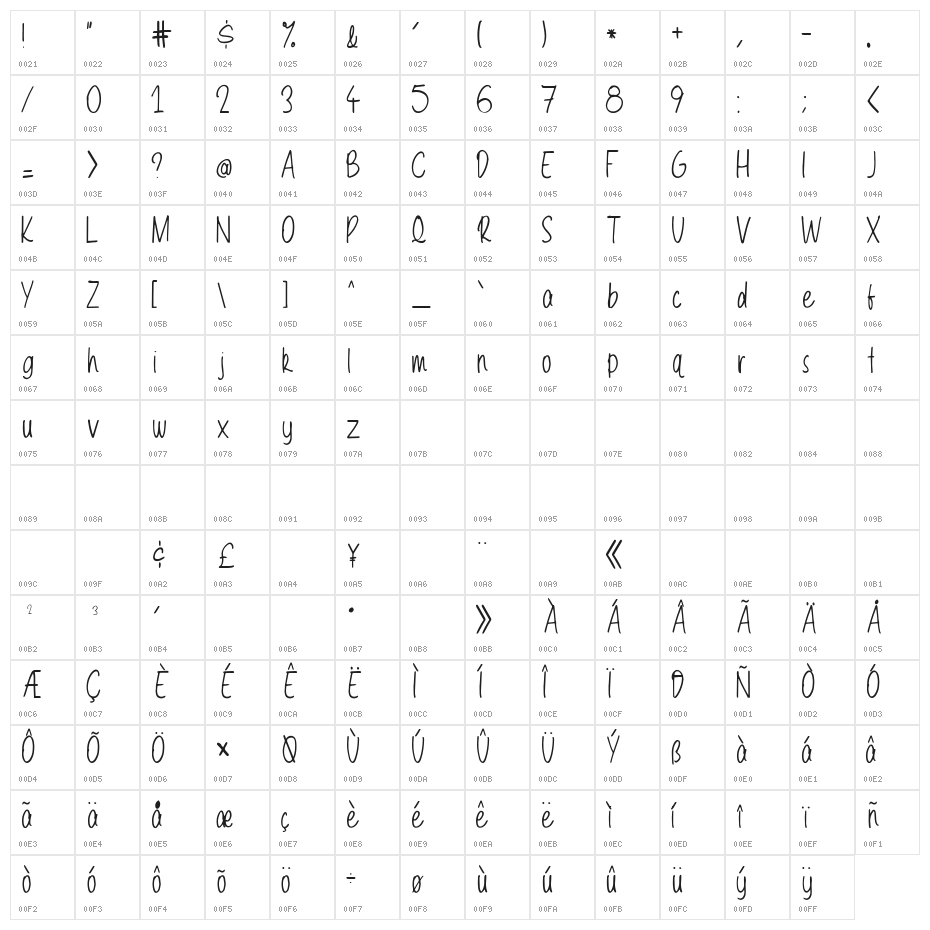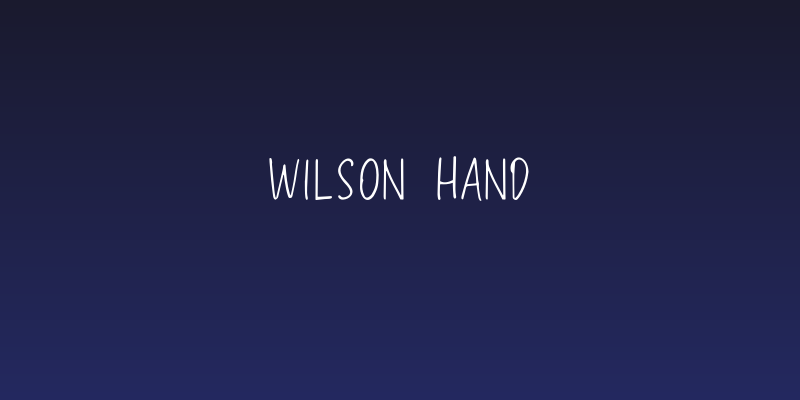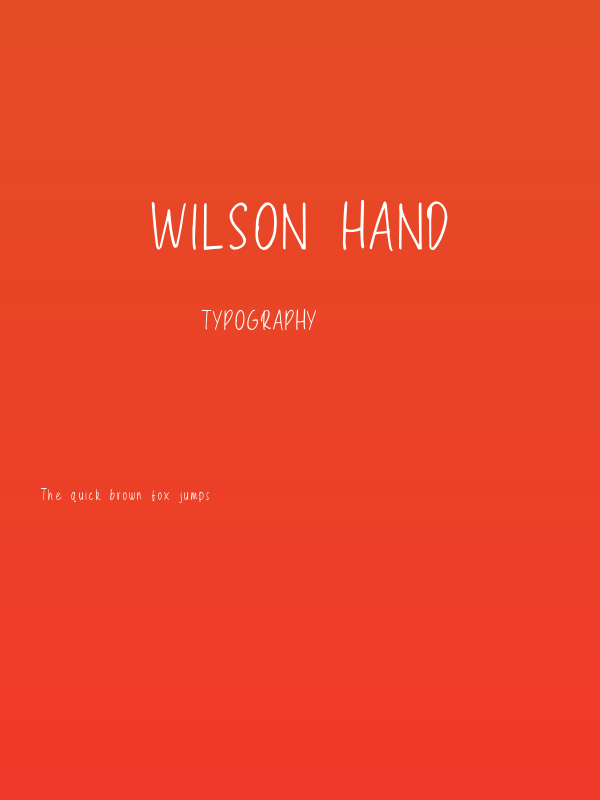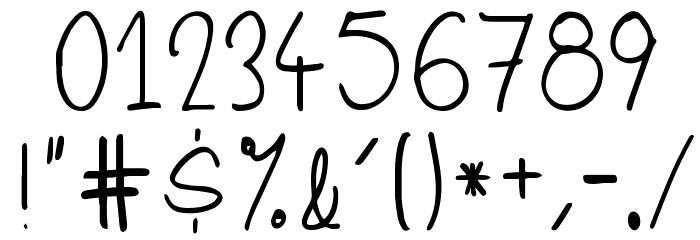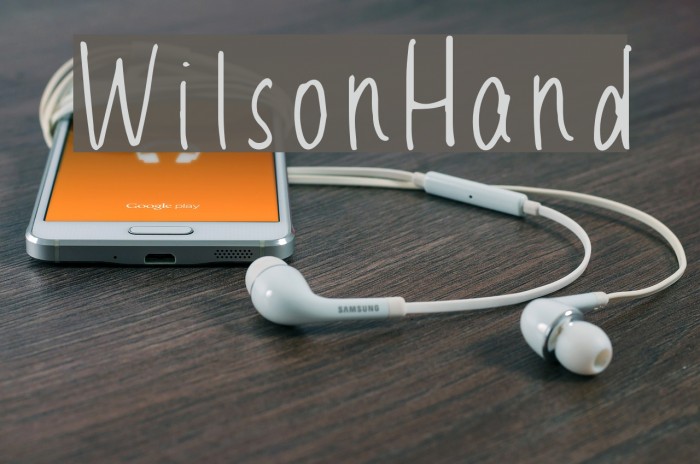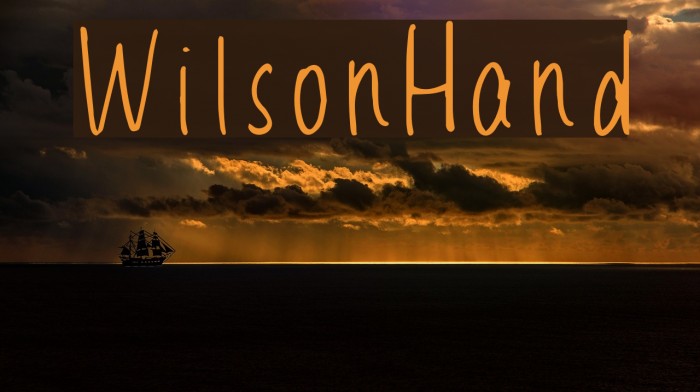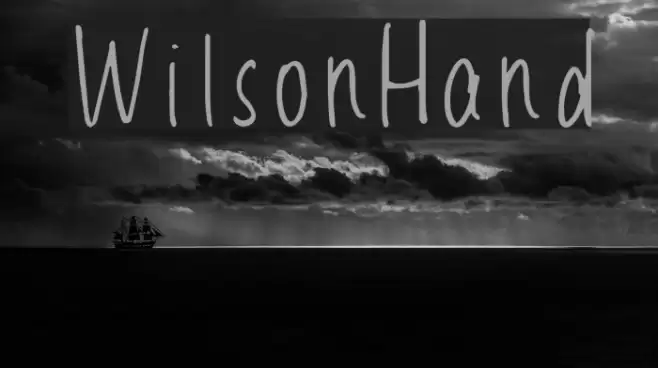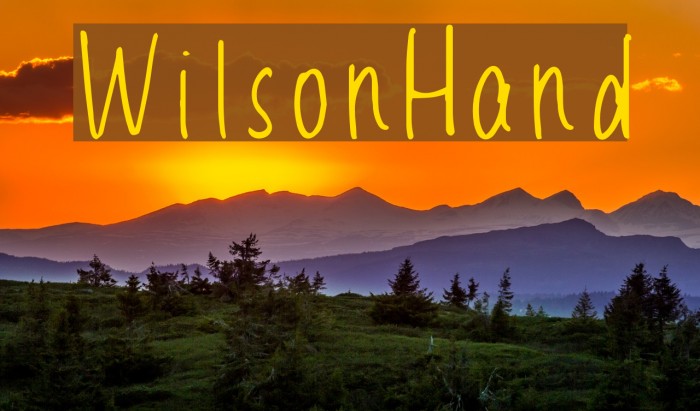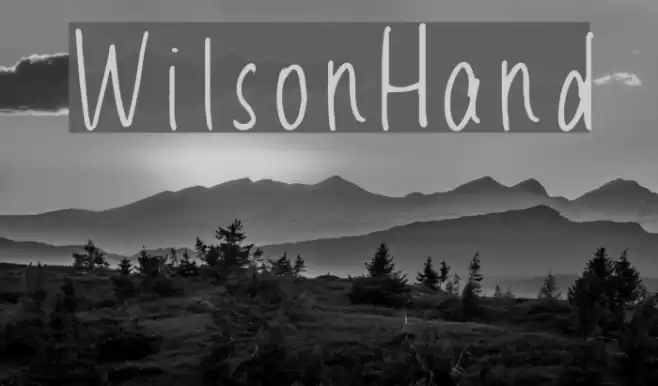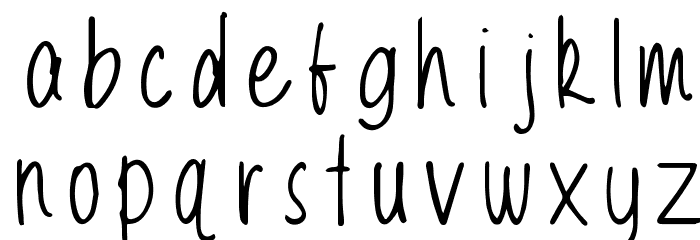
Wilson Hand Font
Wilson Hand Description
This font exhibits a playful and casual handwritten style, characterized by its fluid and organic letterforms. The uppercase and lowercase letters are crafted with a consistent stroke width, giving it a uniform appearance while maintaining a sense of spontaneity. The characters are slightly slanted, adding to the informal and approachable feel. The numerals and special characters are designed to match the overall aesthetic, ensuring coherence across different uses. This font is versatile, suitable for projects that require a personal touch or a relaxed vibe.
| Overall Style | Casual, Playful |
| Use Case | Logos, Headlines, Informal text |
| Proposed Projects | Ideal for greeting cards, personal branding, social media graphics, and informal invitations. |